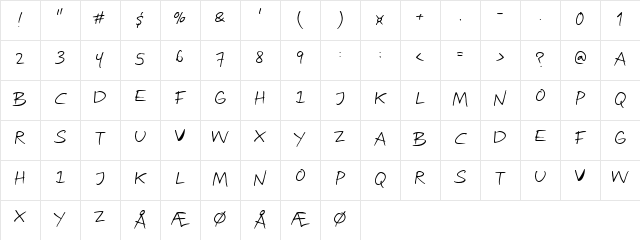
Attract more women Regular
Attract more women is a composed and adaptable typeface that performs quietly and consistently across a wide range of design contexts.